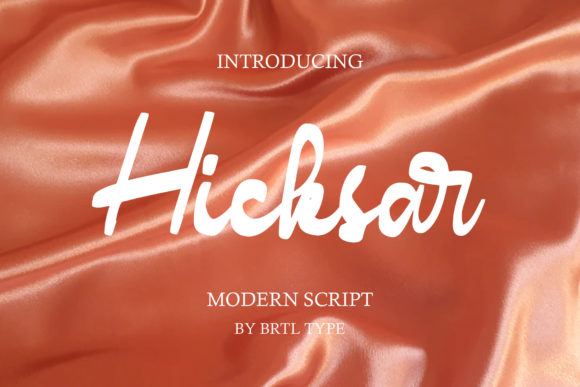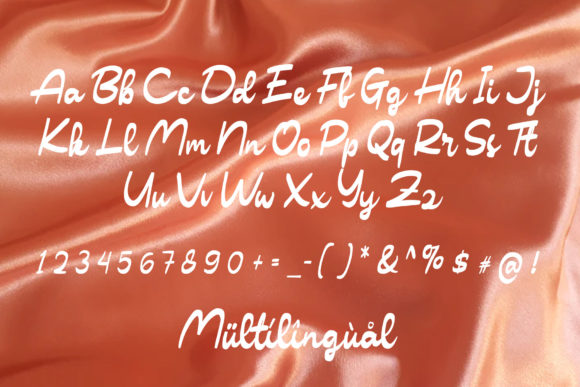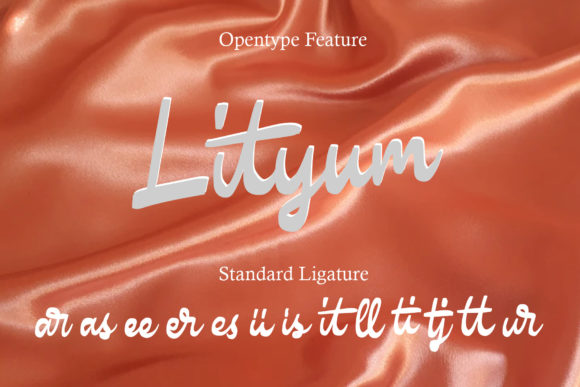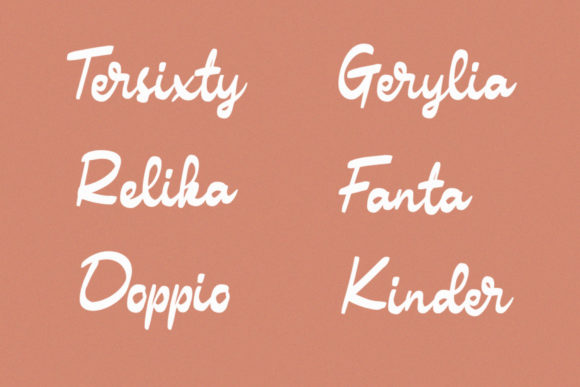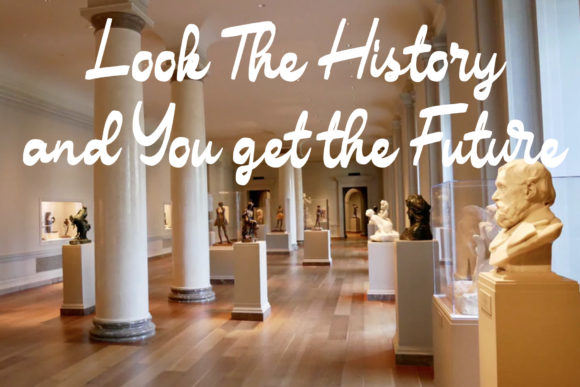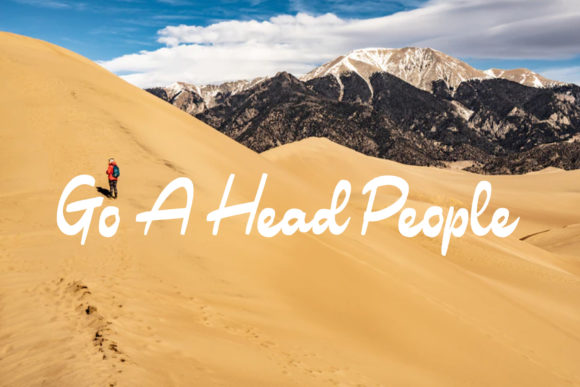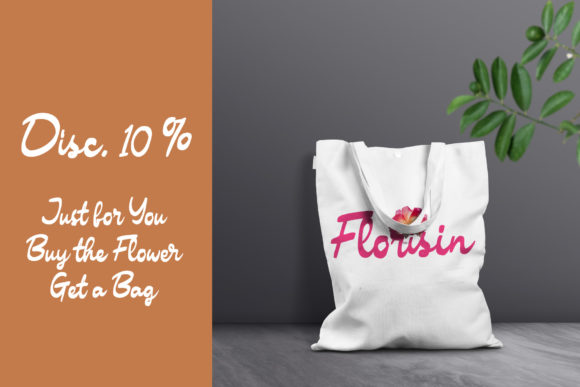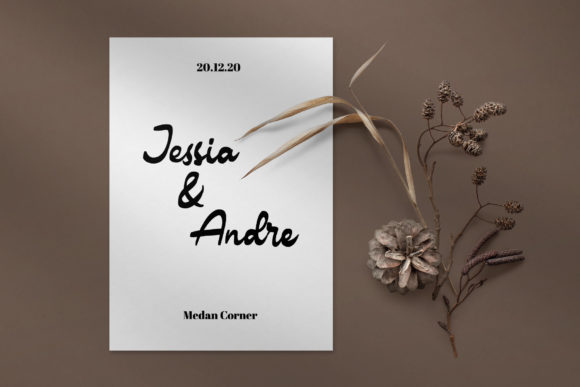
Hicksar Font
About Hicksar Font
Hicksar is a sweet and dainty handwritten font. It will add an incredibly joyful touch to your designs. Add this beautiful font to each of your creative ideas and notice how it makes them stand out!